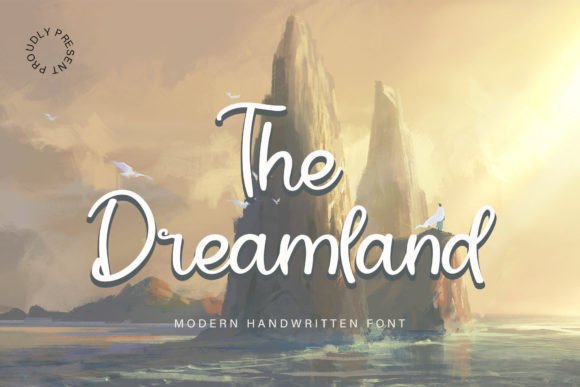
**Unleash Your Creative Vision with The Dreamland Font: The Epitome of Elegance and Charm**
In a world clamoring for visual appeal, The Dreamland Font emerges as a radiant beacon, captivating the hearts of designers and content creators alike. This enchanting script font, meticulously crafted by the ingenious minds at pinkmeca, is a symphony of strokes, curves, and flourishes, poised to transform your creative aspirations into breathtaking realities.
**A Journey Through The Enchanting Realm of The Dreamland Font**
The Dreamland Font is an artistic masterpiece that transports you to a realm of ethereal beauty. Its thin, graceful letters dance across the page like whispers of wind, evoking a sense of wonder and delight. Each character is a work of art, meticulously designed to capture the essence of elegance and charm.
**Endless Creative Possibilities Await**
With The Dreamland Font as your artistic companion, your creativity knows no bounds. Its versatility extends across a myriad of projects, from wedding invitations that exude romance and sophistication to social media posts that radiate personality and flair. Let your imagination soar as you craft eye-catching logos, branding materials, and marketing campaigns that leave an indelible impression.
**The Perfect Font for Instagram Mastery**
In the realm of social media, The Dreamland Font reigns supreme. Its captivating style transforms ordinary posts into visually stunning masterpieces, captivating the attention of your audience and leaving them yearning for more. Elevate your Instagram presence to new heights, captivating your followers with posts that radiate charm and sophistication.